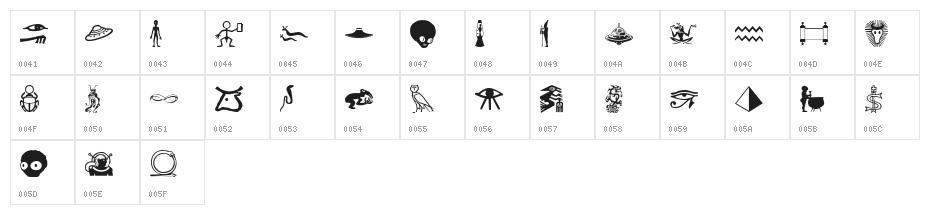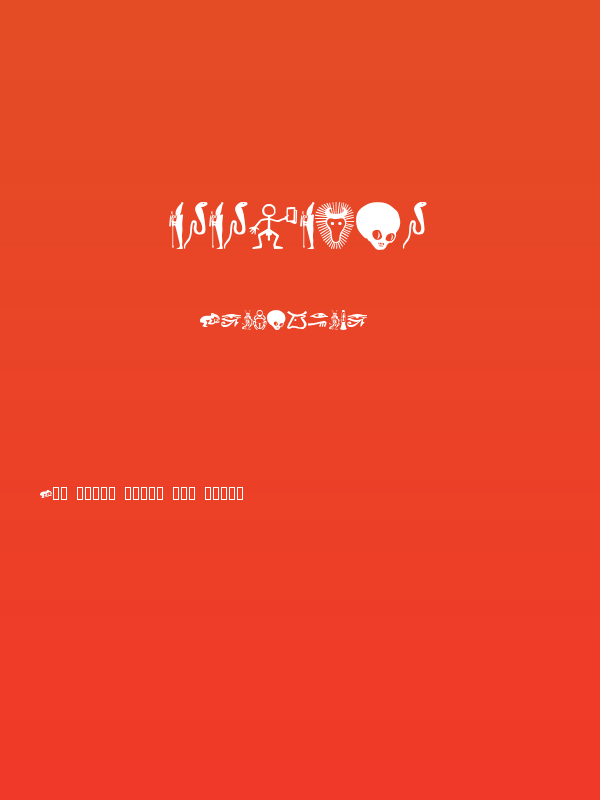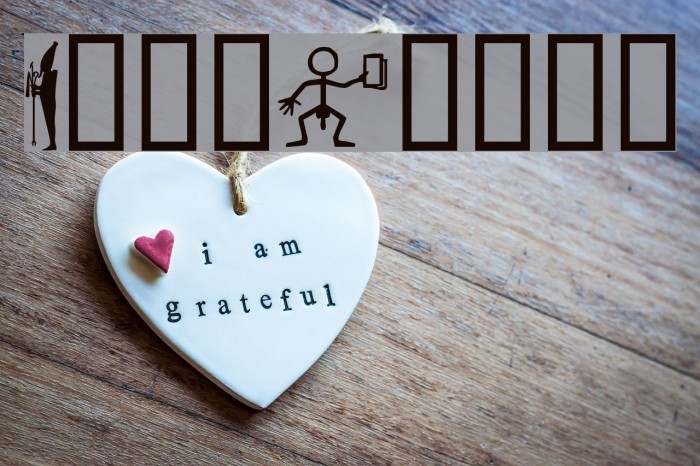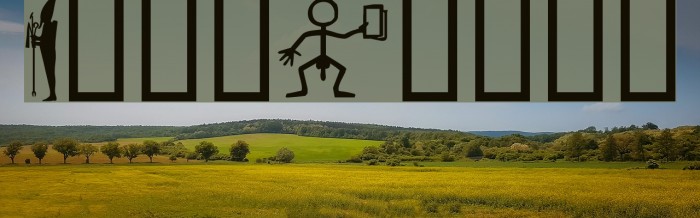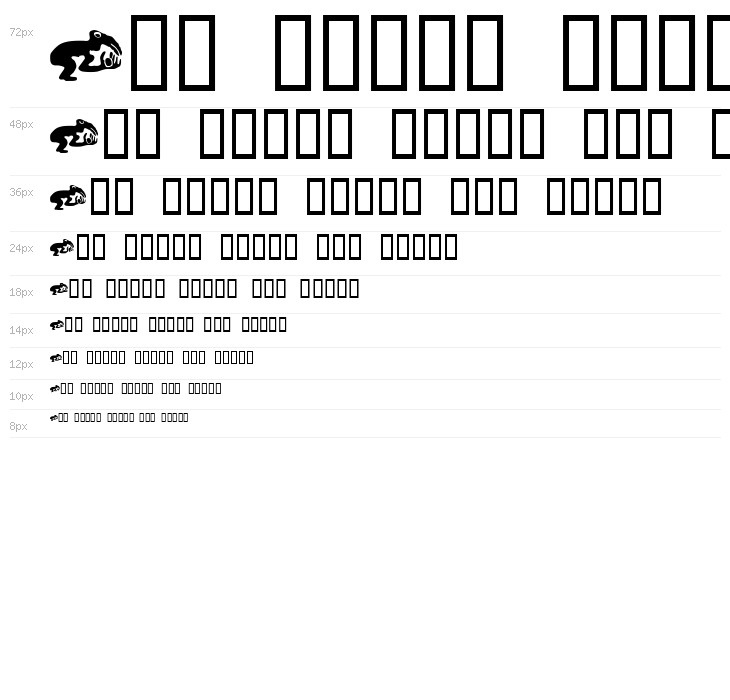
IsisDings Font
IsisDings Description
This font is a collection of decorative symbols and icons inspired by ancient Egyptian motifs and extraterrestrial themes. It features a variety of unique and intricate designs, including hieroglyphic-like symbols, alien figures, and UFO imagery. The characters are bold and striking, making them ideal for creative and thematic projects. The font does not follow traditional alphabetic or numeric structures, focusing instead on visual storytelling through its eclectic mix of symbols.
| Use Case | Logos, Posters, Artistic Designs |
| Proposed Projects | Ideal for themed event posters, creative design projects, and decorative artwork that requires a unique and mystical touch. |